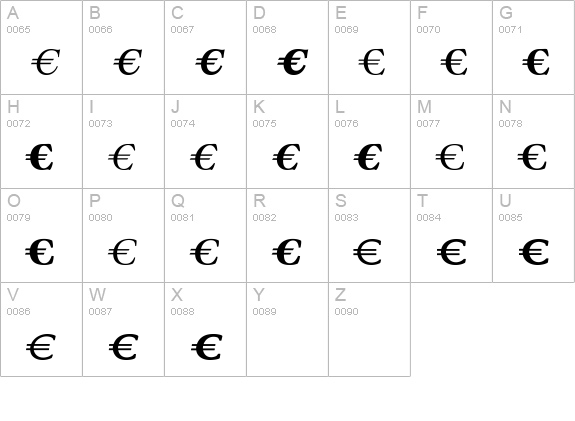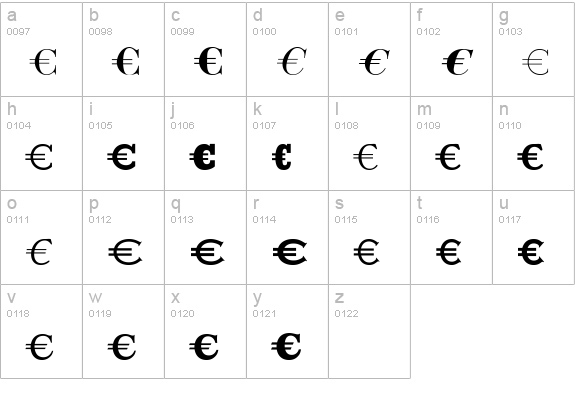
EuroSerifEF-Eight Font Details
EuroSerifEF-Eight is a sophisticated and elegant serif font that exudes a timeless charm and classic appeal. With its clean lines and graceful curves, this font is perfect for adding a touch of sophistication to any design project. Whether you are creating a formal invitation, a stylish logo, or a professional document, EuroSerifEF-Eight is sure to impress. What makes EuroSerifEF-Eight even more appealing is that it is available for free download at FontsMarket.com. That's right, you can easily access this beautiful font without having to spend a dime. So why wait? Enhance your designs with EuroSerifEF-Eight today and elevate your work to the next level of elegance and style.